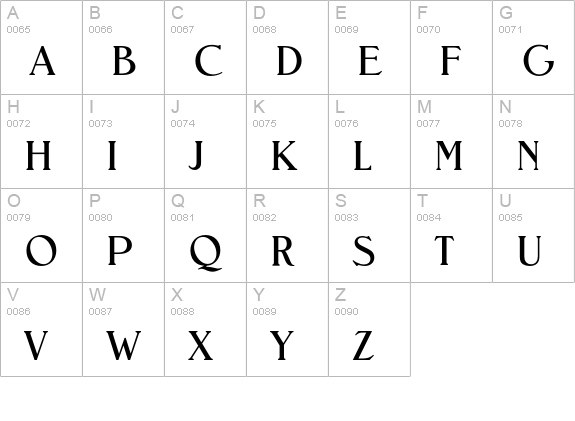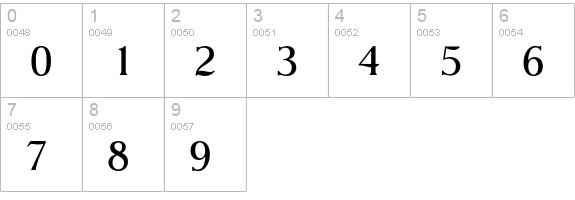
Nevada-Regular Font Details
Nevada-Regular is the standard, neutral variant in the Nevada typeface family \xE2\x80\x94 well suited to general body text, paragraphs, and standard typographic work.
Nevada-Regular is a versatile and modern font that effortlessly blends style and readability. With its clean lines and balanced proportions, this typeface is perfect for a wide range of design projects, from branding to editorial to web design. Whether you're creating a sleek logo or designing a professional website, Nevada-Regular is sure to make a bold statement. Best of all, Nevada-Regular is available for free download at FontsMarket.com. This means you can easily access this high-quality font without breaking the bank. Don't miss out on the opportunity to elevate your designs with Nevada-Regular - download it today and let your creativity shine!